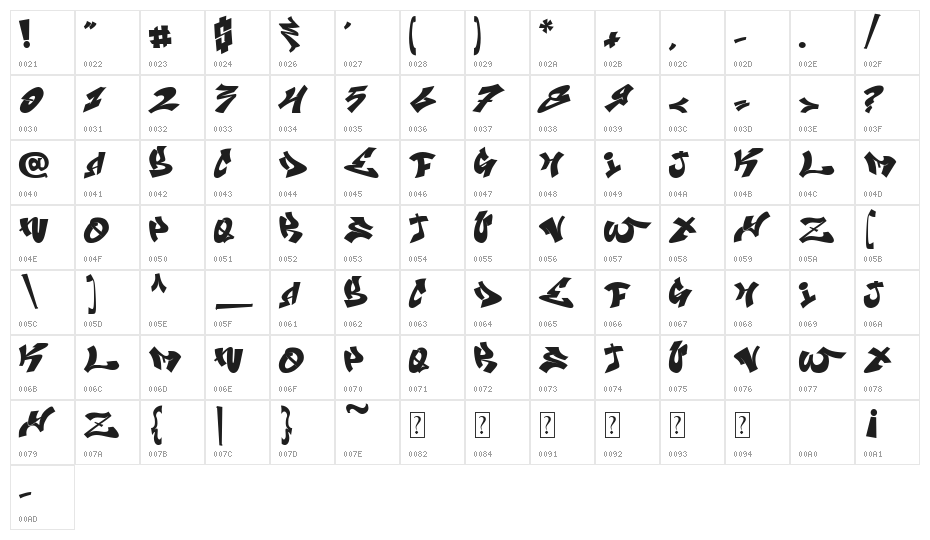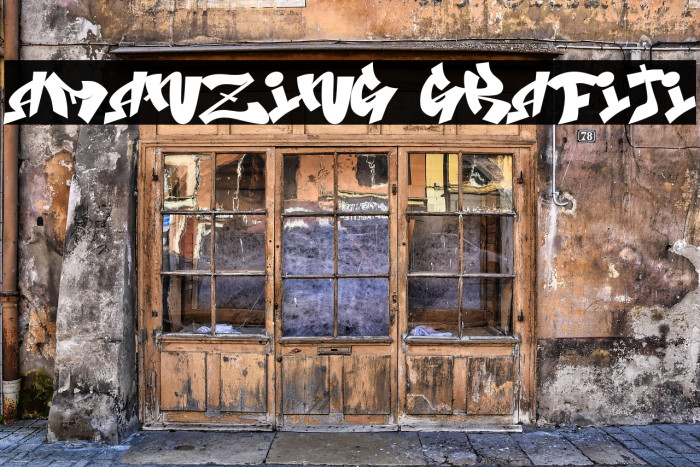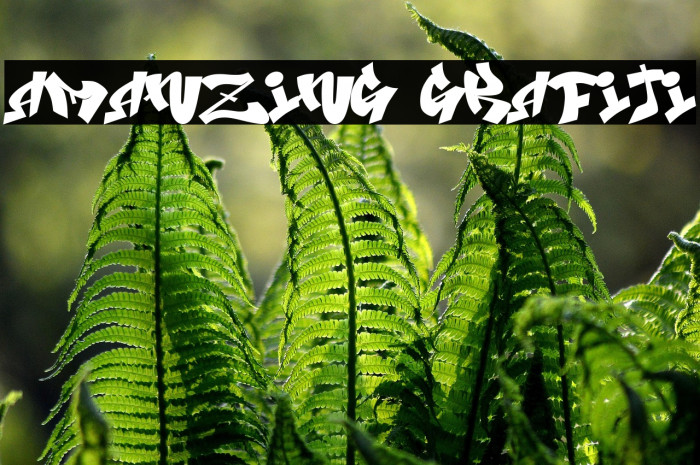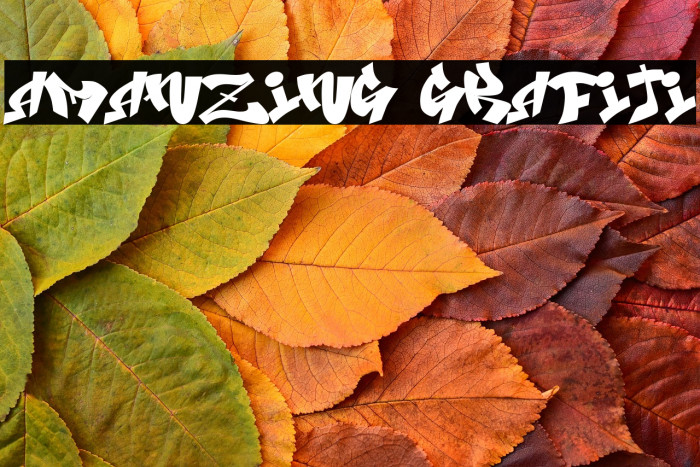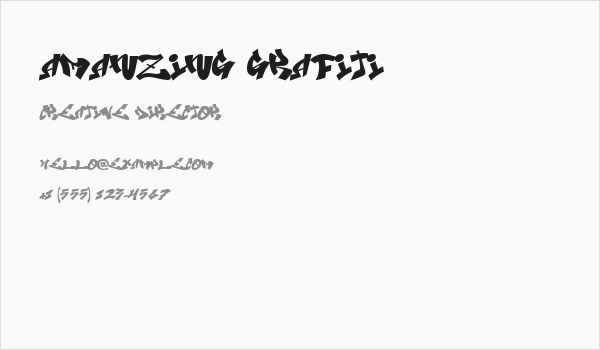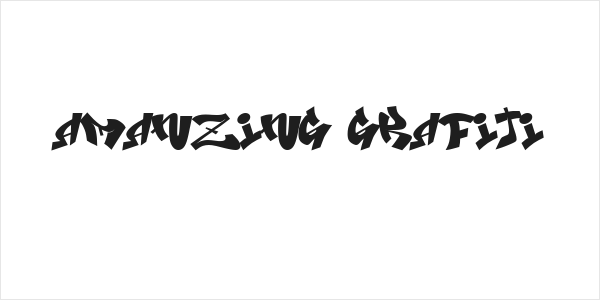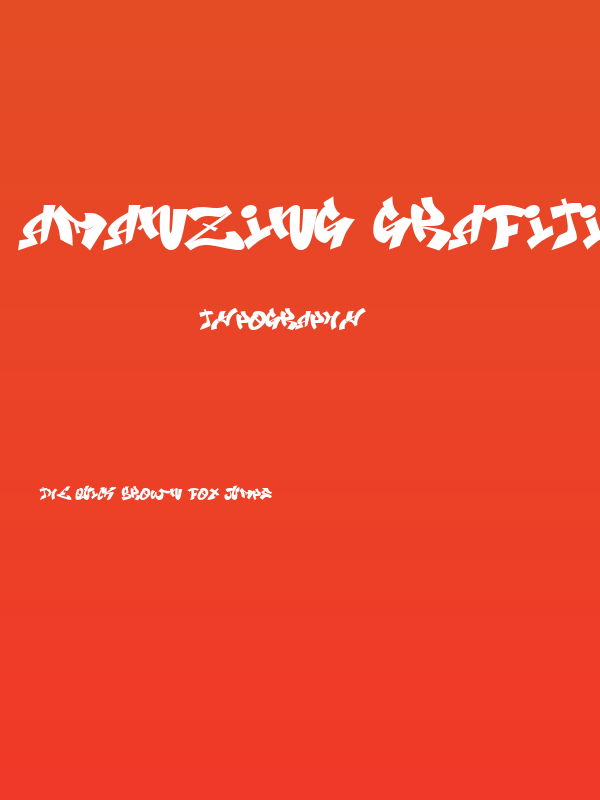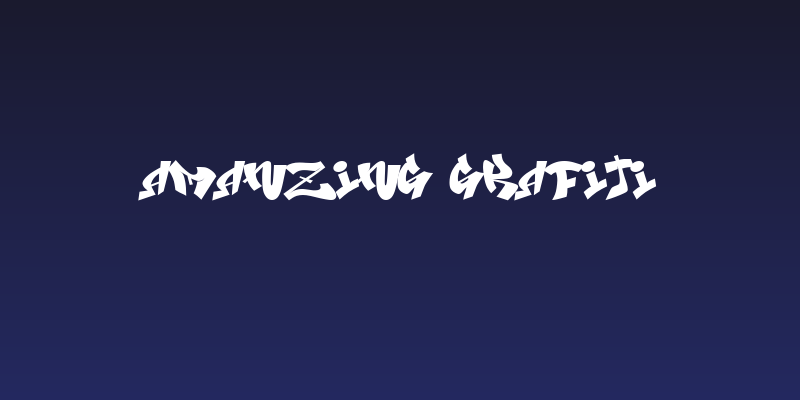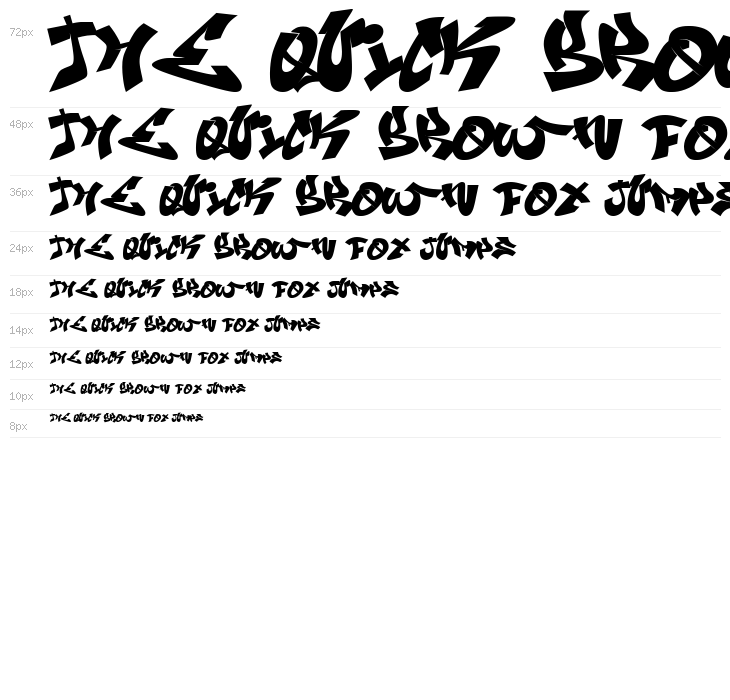
Amanzing Grafiti Font
Amanzing Grafiti Description
This font embodies the raw, energetic essence of street art with its bold, angular strokes and dynamic forms. Each character is crafted with sharp edges and a sense of movement, reminiscent of graffiti tags found in urban environments. The uppercase and lowercase letters maintain a consistent style, with exaggerated curves and a slightly condensed appearance. Numbers and special characters follow the same aesthetic, adding to the cohesive, rebellious vibe. The font's unique style makes it stand out, capturing attention with its artistic flair.
| Overall Style | Modern, Urban |
| Use Case | Logos, Posters, Headlines |
| Proposed Projects | Ideal for urban-themed designs, streetwear branding, music album covers, and event posters. |